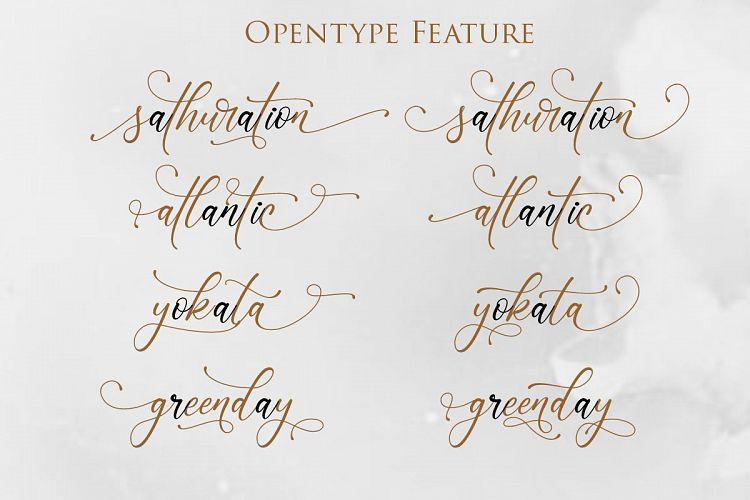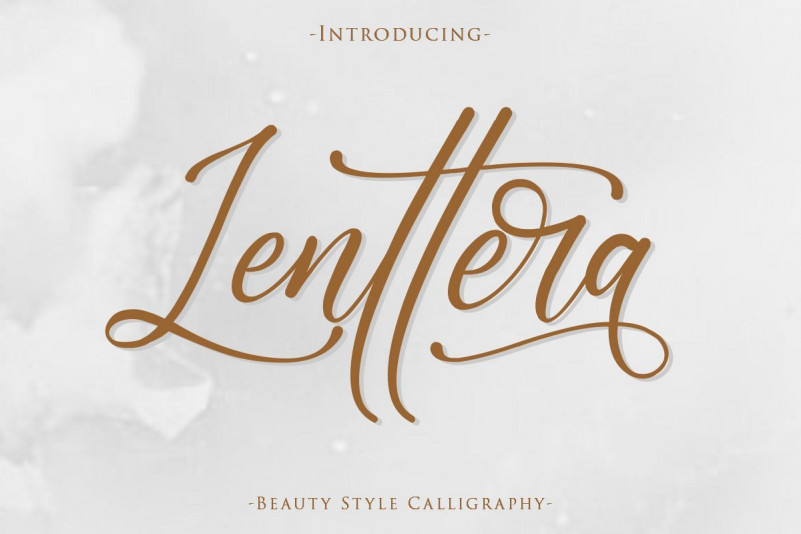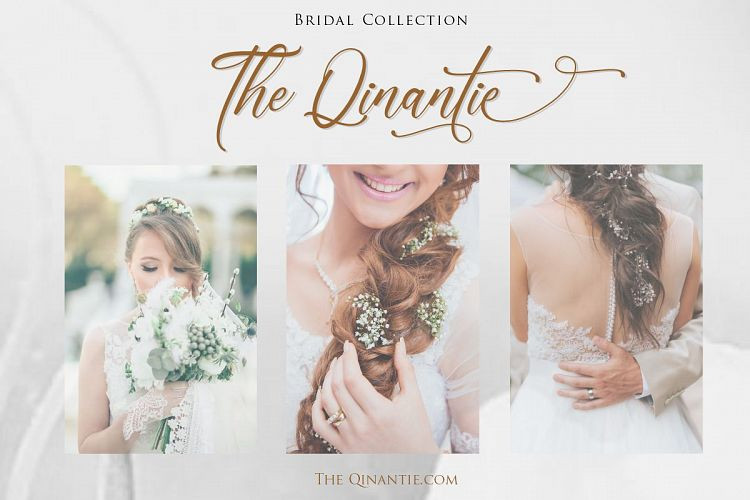
Lenttera Font
say hello to Lenttera ! Lenttera is a unique, cool and Beauty Stylistic Calligraphy. It’s hand look style makes perfect to use for  invitation, stationery, wedding designs, social media posts, advertisements, product packaging, product designs, label, photography, watermark, special events,logos, signatures, quotes, badges, labels, packaging design, blog headlines or simply use it in your next design project.